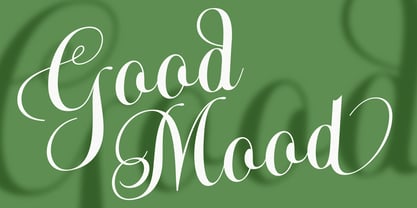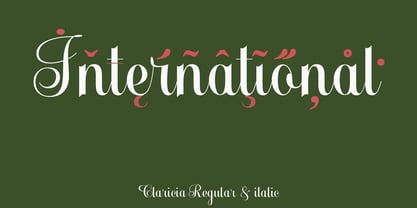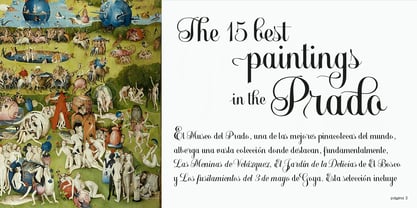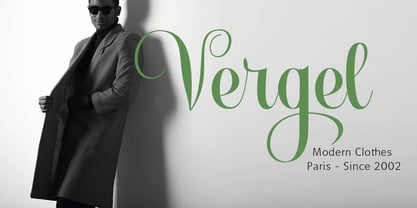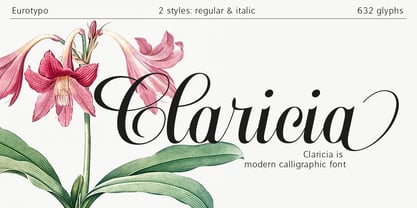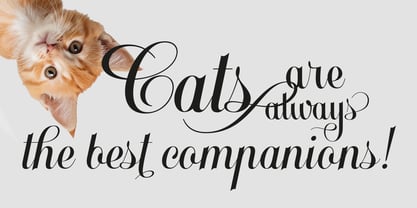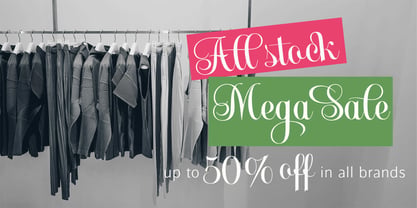
Claricia
by Eurotypo
The Claricia Font Family was designed by Carine de Wandeleer and published by Eurotypo. Claricia contains 2 styles and family package options. More about this family
Claricia is a calligraphic font that uniquely combines organic naturalness with effortless elegance. Designed to stand out, it offers a creative universe with 632 glyphs and advanced OpenType features that multiply its possibilities. Every detail has been carefully considered: the uppercase letters have multiple variations, and the lowercase letters offer a rich variety of alternatives, allowing for fluid, dynamic, and non-repetitive compositions. It also incorporates elegant initial and final strokes that add a sophisticated finish to each word and a large number of ligatures, making your text look more natural. Claricia is the perfect choice for adding personality to headlines, logos, branding, and packaging, bringing a distinctive and memorable touch to any project. Discover its full potential and let your creativity flow with Claricia.
Eurotypo is a foundry established in 2004 by Carine de Wandeleer and Olcar Alcaide that focuses on research, design, and the production of new fonts. Originally formed in Santa Severa, Italy, the group has since moved its headquarters to Valencia, Spain. In Eurotypo we develop new and original typefaces inspired by both the models of ancient writing and the investigation of new forms of expression based on the communication function of typography. The group made its MyFonts debut with Antium, and has followed it up with bestsellers such as script faces Aleka and Juliette.